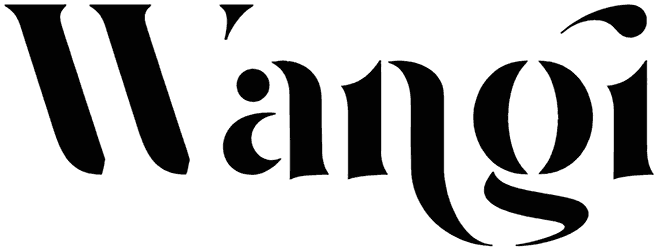
Wangi Font
If you are interested in fancy and catchy patterns, this option can provide this vibe for your novel design. As a unique serif font, Wangi font consists of smooth letters and conveys a dapper mood. With almost full support of characters, this fashion font will illustrate your designs well, for instance, movie posters, magazines, branding, and so on.